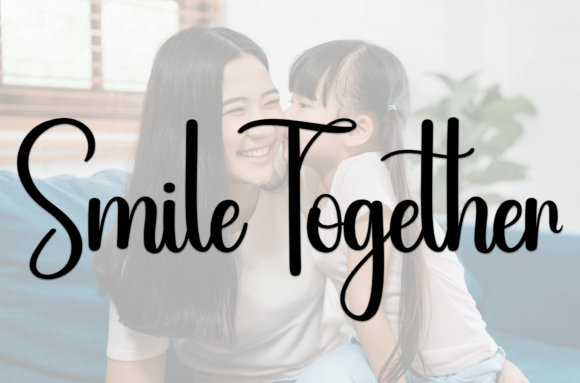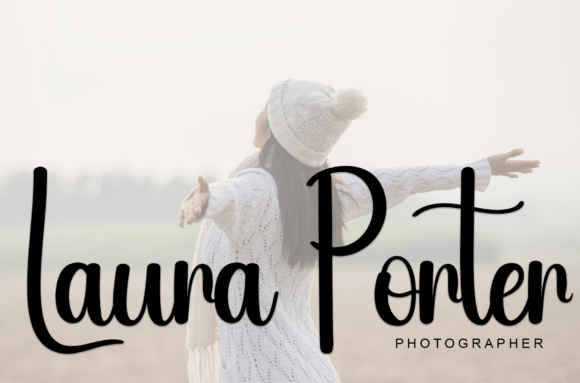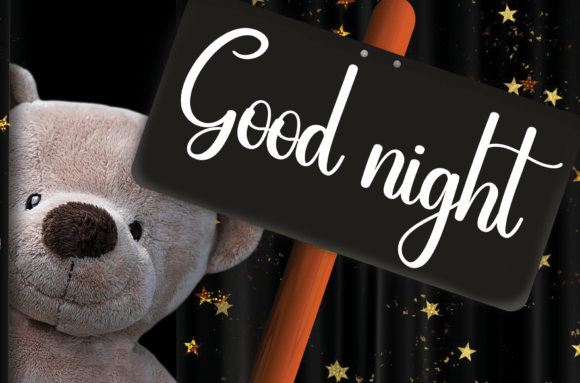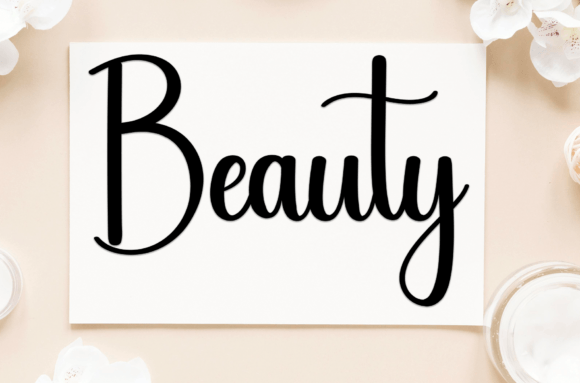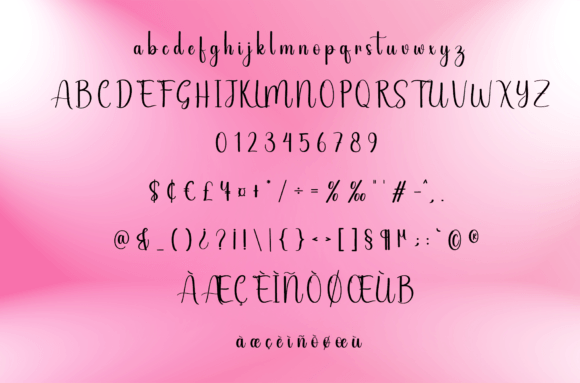
Motion Font
About Motion Font
Motion is a sweet and friendly handwritten font that brings a touch of fun and relaxation to every design. With its smooth curves and casual elegance, Motion is the perfect choice for projects that need a warm, personal feel. Whether you’re designing wedding invitations, greeting cards, or social media graphics, this font helps your words connect with sincerity.
Motion has an organic flow that feels like real handwriting. Each letter is crafted to look natural and approachable. This makes it a great font for any project where you want to share joy, love, or creativity. If you love fonts that feel genuine and fresh, Motion will quickly become a favorite in your design toolkit.
Perfect for Special Occasions
Motion shines in designs that celebrate meaningful moments. Use it to create:
• Wedding Invitations: Announce your special day with style and warmth.
• Save-the-Date Cards: Set the mood for a memorable event.
• Thank-You Notes: Express gratitude with a handwritten touch.
• Birthday Cards: Make celebrations feel personal and cheerful.
• Baby Announcements: Share your happy news with a friendly look.
With Motion, your designs will always feel heartfelt and inviting.
Versatile for Any Design
One of the best things about Motion is how adaptable it is. Whether you are working on print or digital projects, this font fits right in. Designers love Motion for:
• Social Media Posts: Add personality to quotes and updates.
• Branding and Logos: Create a relaxed, approachable identity.
• Product Packaging: Make labels feel warm and handmade.
• Printables: Design planners, stickers, and art prints that stand out.
• Craft Projects: Perfect for Cricut, Silhouette, and other cutting machines.
Wherever you use it, Motion will bring an easygoing, stylish touch.
Why Choose Motion Font?
Designers choose Motion because it:
• Feels Personal: Looks just like real handwriting.
• Is Easy to Read: Clear letter shapes work at any size.
• Has Universal Appeal: Fits modern, classic, or playful designs.
• Is Versatile: Works well in many applications.
• Adds Warmth: Makes every message feel friendly and genuine.
Design Tips for Motion
To get the best results with Motion, try these ideas:
1. Pair with Sans-Serif Fonts: Keep your layout balanced.
2. Use Soft Color Palettes: Pastels and neutrals complement its style.
3. Add Illustrations: Combine with hand-drawn icons or florals.
4. Keep It Spacious: Give letters room to breathe.
5. Highlight Important Text: Use bigger sizes for titles or names.